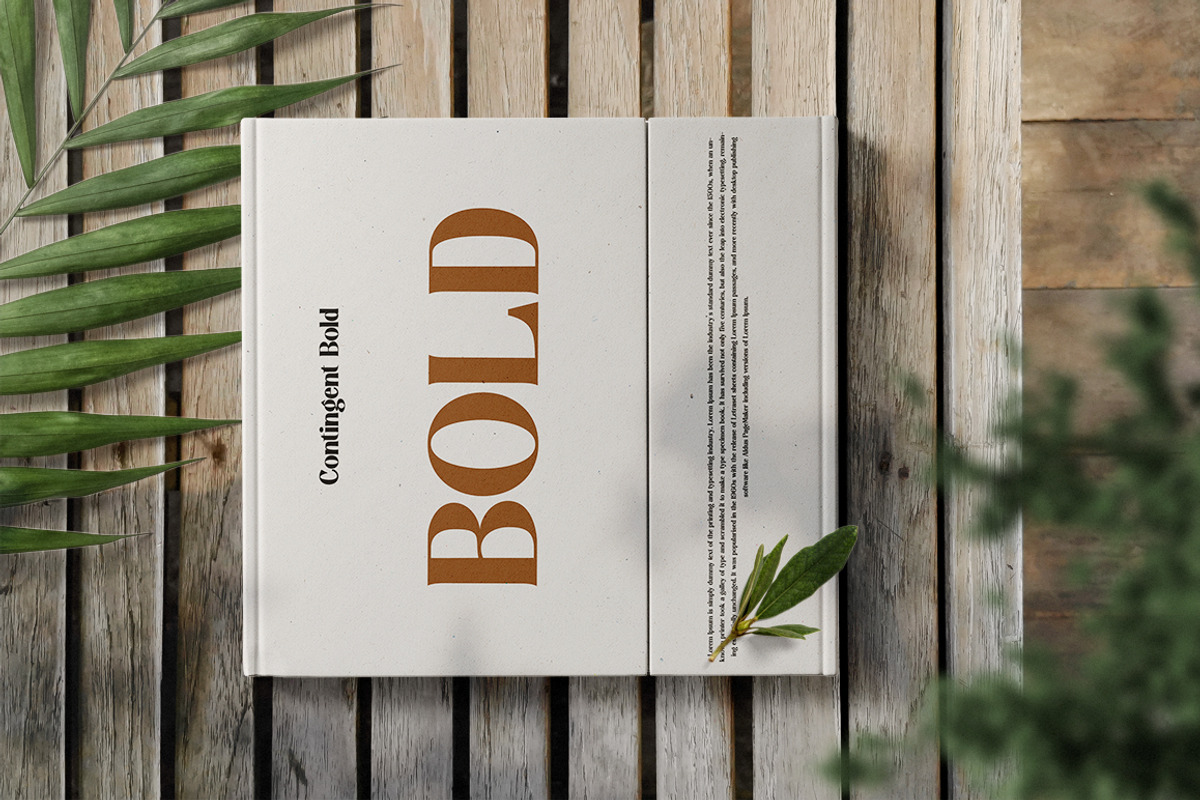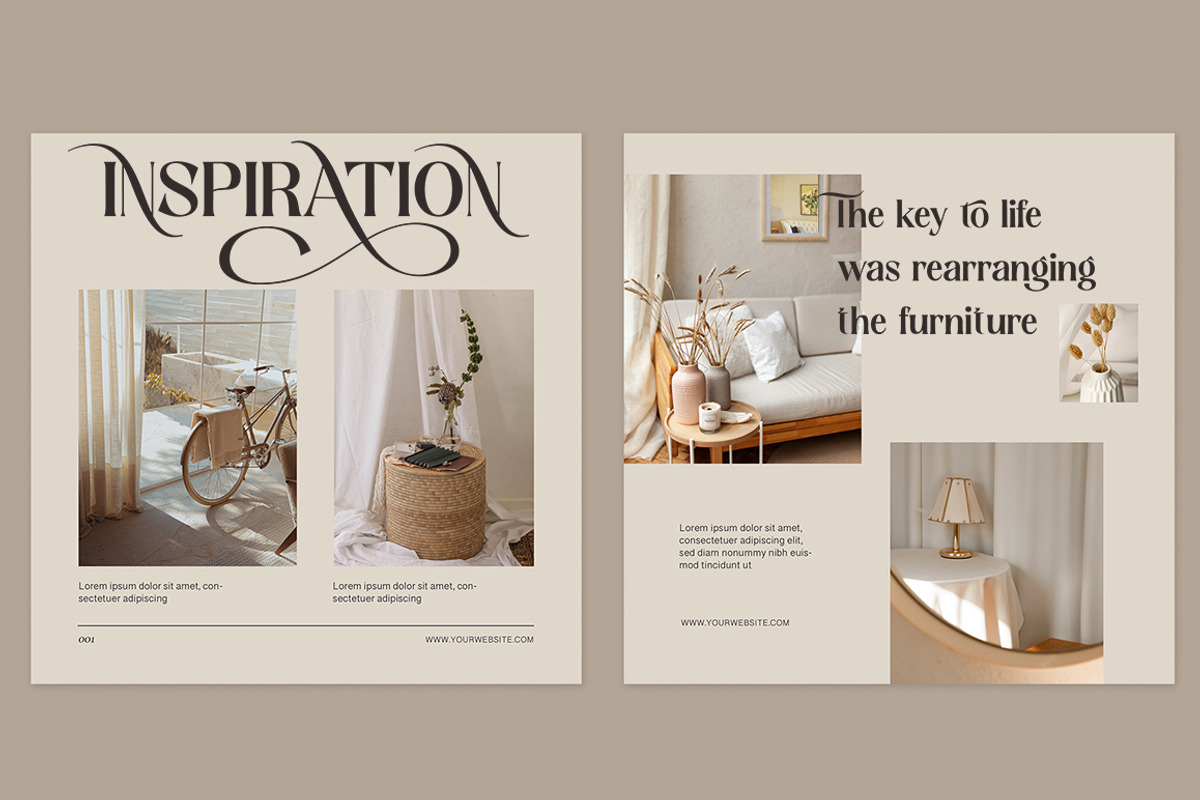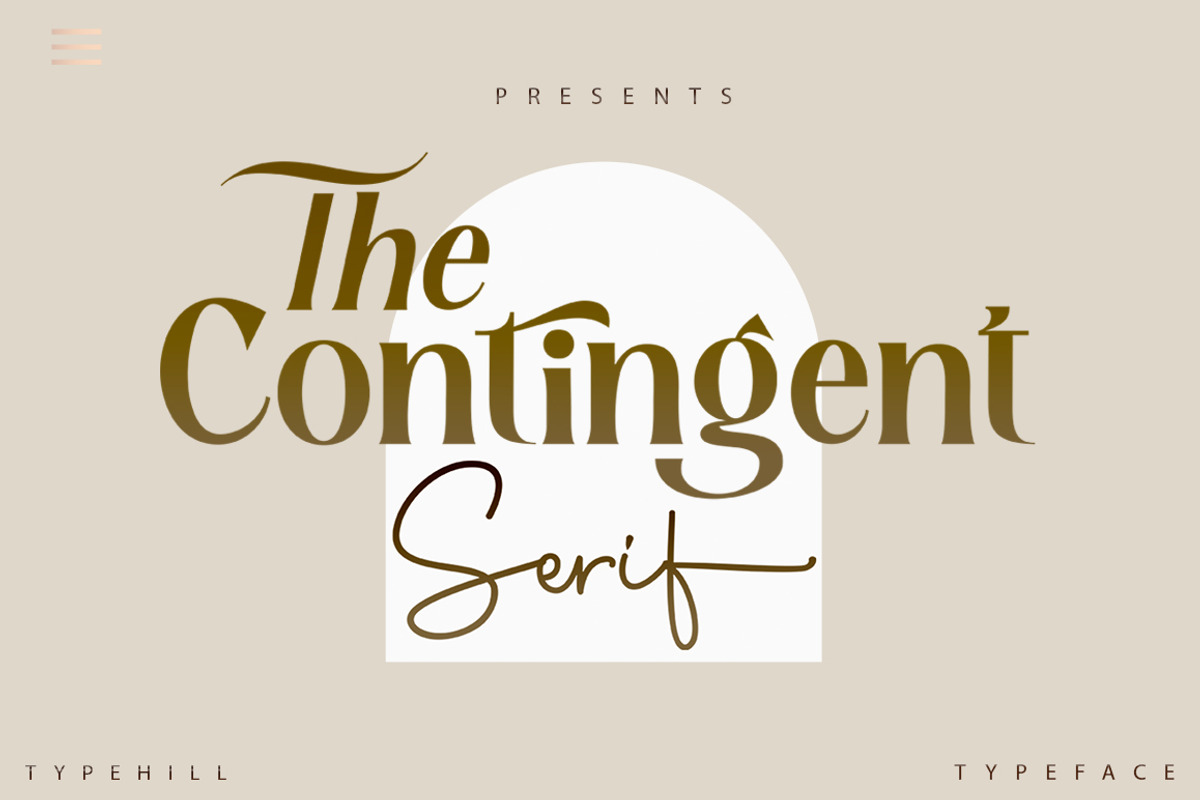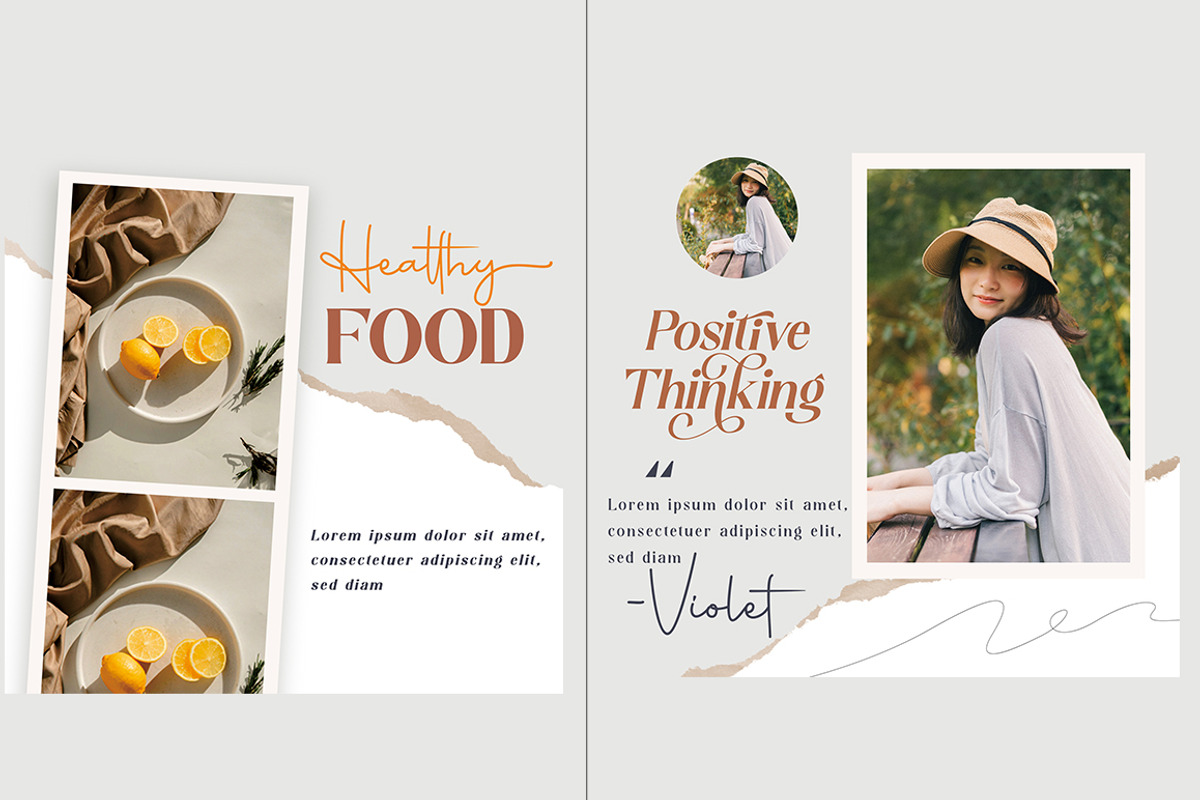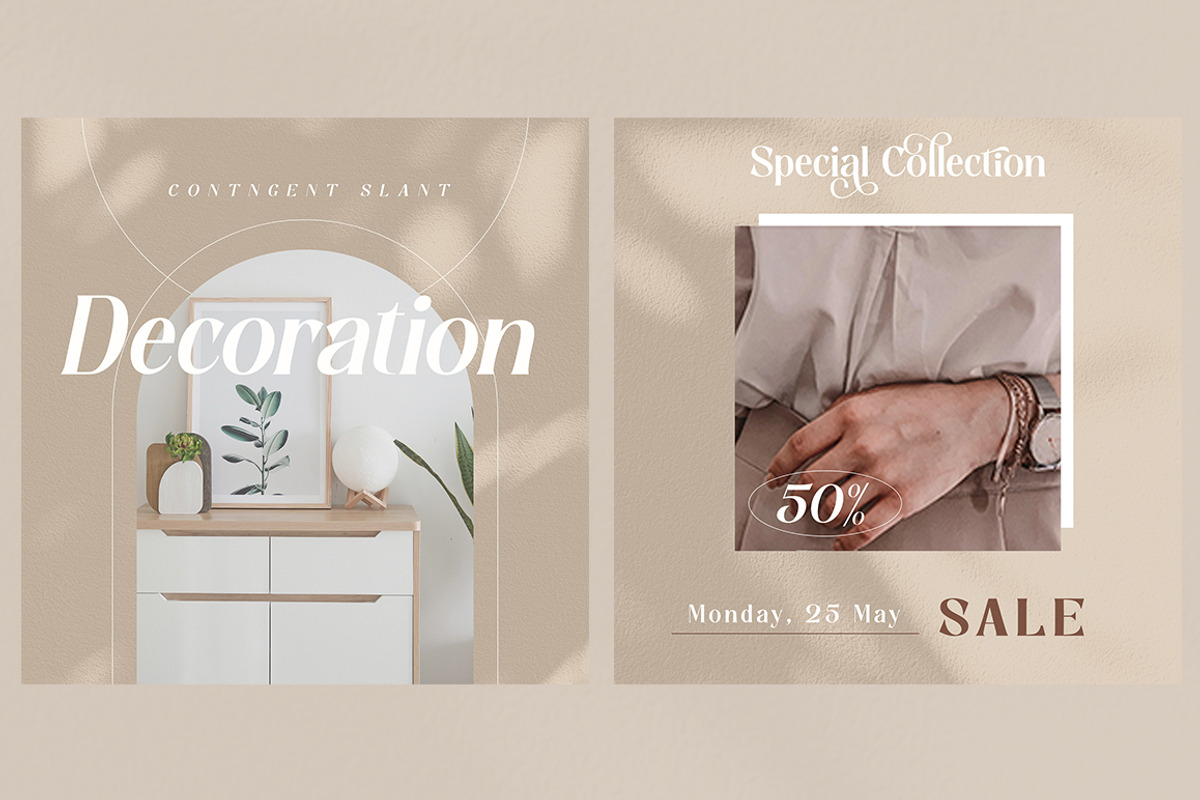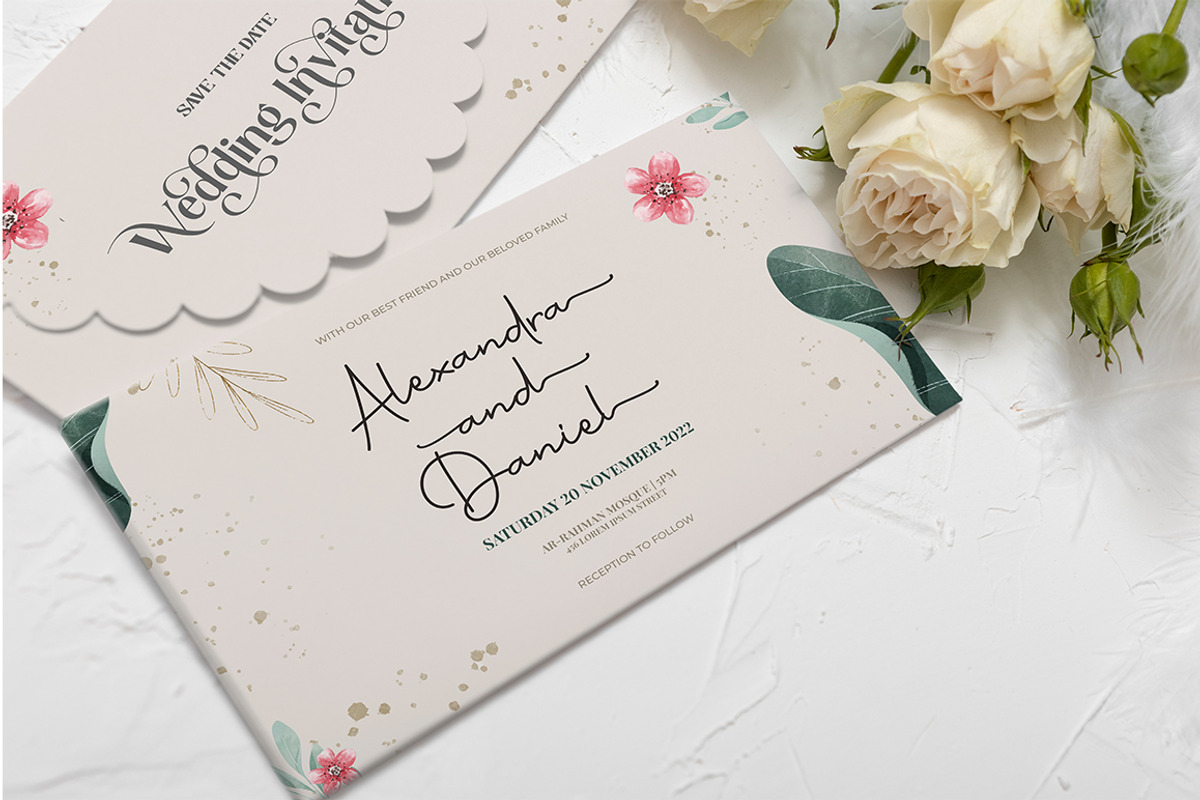
Contingent Font Duo
Introducing Contingent Duo: A stylish modern font made up of an elegant and elegant script and serif font. With a modern and minimal look, Continget Font Duo brings a clean and luxurious style to your website, modern logos, brand identities, social media quotes, wedding stationery and more!
The serif includes two weights - regular and bold - and features built-in OpenType kerning for a professional touch.